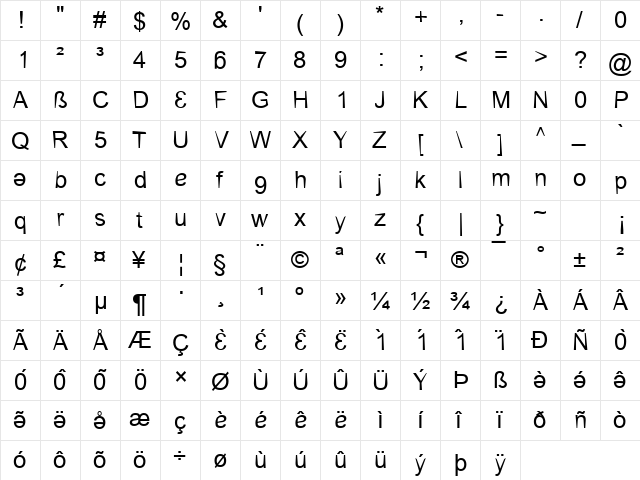
CerebralPares Falk
CerebralPares takes a measured approach to typography — its balanced proportions and neutral character make it a reliable workhorse for both digital and print work.